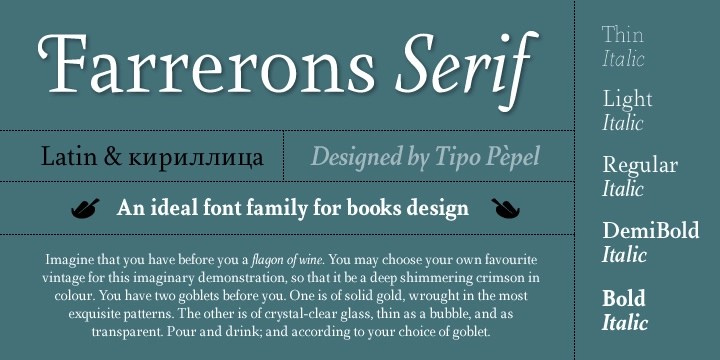
Farrerons Serif Font
Farrerons Serif Font is perfectly suited for luxury brand identities, sophisticated editorial layouts, prestigious book designs, high-end fashion magazines, elegant restaurant branding, classical music programs, fine art publications, upscale wine labels, and distinguished corporate communications.
What makes Farrerons Serif Font so exciting is its exquisite refinement and aristocratic elegance that transforms ordinary text into sophisticated typographic masterpieces while honoring the finest traditions of classical serif design through every meticulously crafted letterform. This magnificent typeface embodies timeless sophistication with its graceful character shapes and perfectly balanced proportions that evoke the golden age of typography and classical printing craftsmanship. The font's distinctive serifs and elegant details create an atmosphere of luxury and cultural refinement that resonates with discerning audiences who appreciate the intersection of tradition and contemporary excellence. Farrerons Serif Font stands out through its ability to convey prestige, cultural authority, and timeless elegance, making it perfect for projects that need to establish premium positioning while celebrating the enduring beauty of classical typography and sophisticated design traditions.
The Farrerons Serif Font family includes Light, Regular, Medium, Bold, and Black weights, each available in both roman and italic styles for comprehensive typographic elegance. The family also features small caps, old-style figures, and classical ligatures that enhance the font's sophisticated appeal and provide complete solutions for prestigious design projects requiring traditional typographic excellence.
The technical mastery of Farrerons Serif Font includes comprehensive character sets supporting multiple languages, advanced OpenType features, and precision-engineered spacing that preserves the font's classical proportions while ensuring optimal reading comfort. The font delivers exceptional performance across both digital and print applications while maintaining the elegant details that give it its distinctive classical character and sophisticated appeal.
Whether you're designing luxury brand materials, creating prestigious publications, developing cultural project identities, or crafting designs that require classical sophistication and typographic excellence, Farrerons Serif Font delivers the perfect combination of traditional elegance and contemporary functionality that makes your projects timelessly distinguished and culturally resonant for audiences seeking authentic luxury and classical refinement.